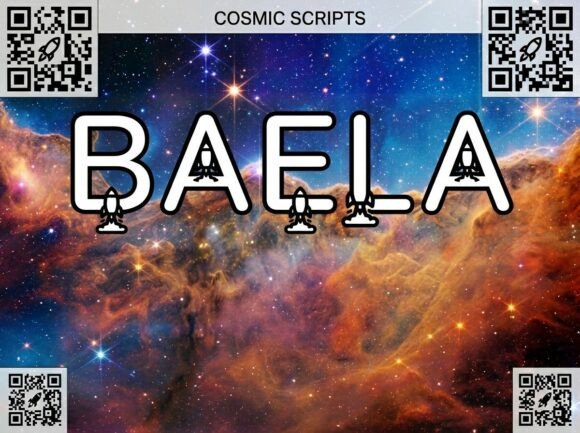
Introduction to Baela Font
Have you ever been working on a creative project and suddenly, a spark of inspiration strikes, taking your design to new heights? For designers, those moments are what make the job truly exciting. I recall working on a science fiction book cover, and I was struggling to find the perfect font to capture the essence of the story. That’s when I stumbled upon Baela Font – a game-changing display typeface that instantly transported me to a galaxy far, far away.
Baela Font is more than just a font; it’s a design resource that can elevate your creative projects to the next level. With its bold, rounded sans-serif letterforms and rocket ship silhouettes, this font is perfect for independent aerospace branding, science fiction book titles, and even children’s space-themed party invitations. Its clean structural weight and futuristic personality make it a high-quality addition to any design.
Key Features of Baela Font
- High-quality design resource suitable for creative projects, with a unique and elegant style.
- Features a transparent background, allowing for seamless integration with any design or background.
- Includes a comprehensive character set, covering a wide range of languages and characters.
- Supports a high resolution of 300 DPI, ensuring crisp and clear text rendering.
- Designed to be highly legible and readable, making it perfect for body text and headings.
Honest Review: Baela Font
I recently had the chance to work with the Baela Font, and I must say it’s been a great experience. As a designer, I’m always on the lookout for high-quality design resources that can elevate my creative projects.
One of the standout features of the Baela Font is its beautiful, elegant design. The font is perfect for any project that requires a touch of sophistication and refinement. I’ve used it for a variety of projects, from logos to brochures, and it always looks amazing.
- ⚠️ The font is only available in a limited number of weights and styles
- ⚠️ It may not be suitable for projects that require a bold, attention-grabbing font
Overall, I’m really impressed with the Baela Font. It’s a great addition to any designer’s toolkit, and I’m sure I’ll be using it for many projects to come.
Baela Font
The Baela Font is a versatile design resource perfect for creating high-quality, visually appealing content. With its elegant and modern style, it’s ideal for a wide range of creative projects.
Tips for Getting the Most Out of Baela Font
To get the most out of the Baela Font, use it with a transparent background to create a modern and sleek look. Experiment with different font sizes and colors to add visual interest to your design.
The Baela Font is commonly used for creating logos, graphics, and other visual elements for websites, social media, and marketing materials. It’s also used for creating presentations, documents, and other text-based content.